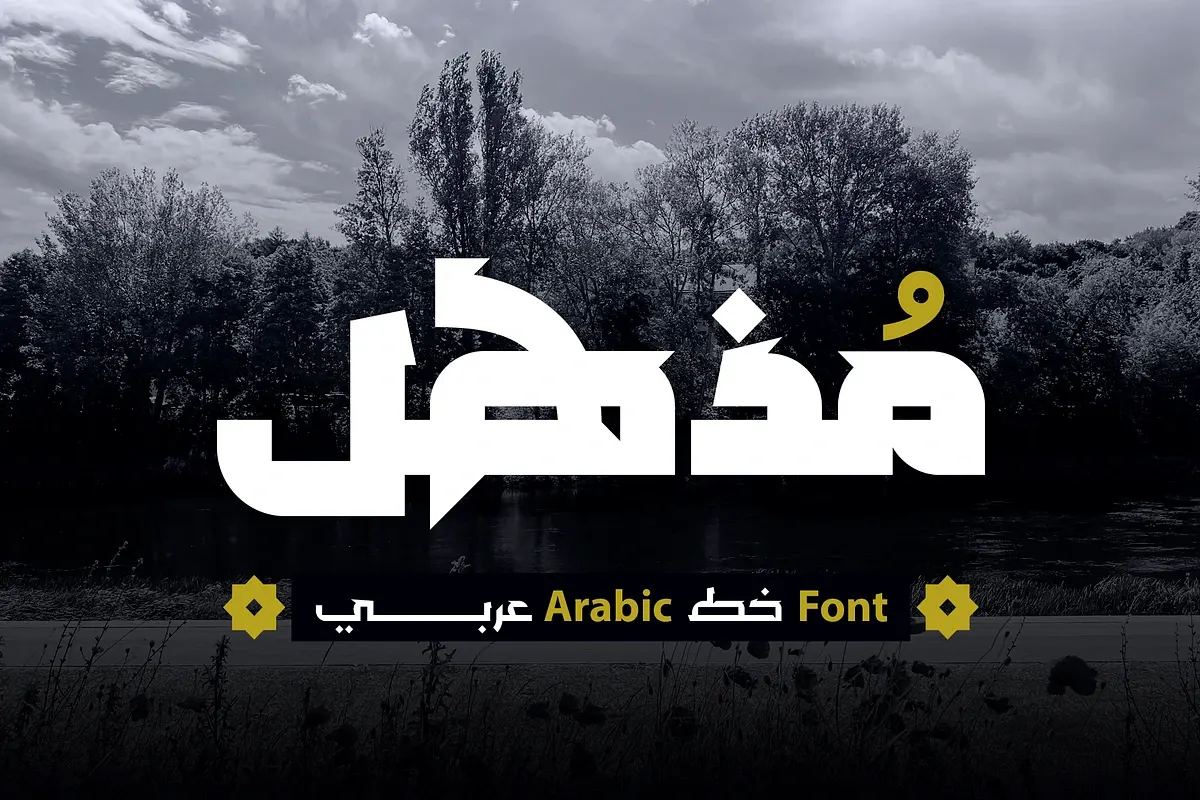
Mozhel – Arabic Typeface Free Download is a beautifully modern and culturally rich typeface that blends traditional Arabic calligraphic influence with contemporary design sensibilities. Ideal for branding, editorial design, product packaging, event materials, and cultural projects, Mozhel offers elegant readability and refined style for Arabic script layouts.
Designed with careful attention to the fluidity and structure of Arabic lettering, Mozhel – Arabic Typeface Free Download delivers a harmonious balance between artistic tradition and modern minimalism. Its clean lines and graceful letterforms make it perfect for both display and text use across digital and print media.